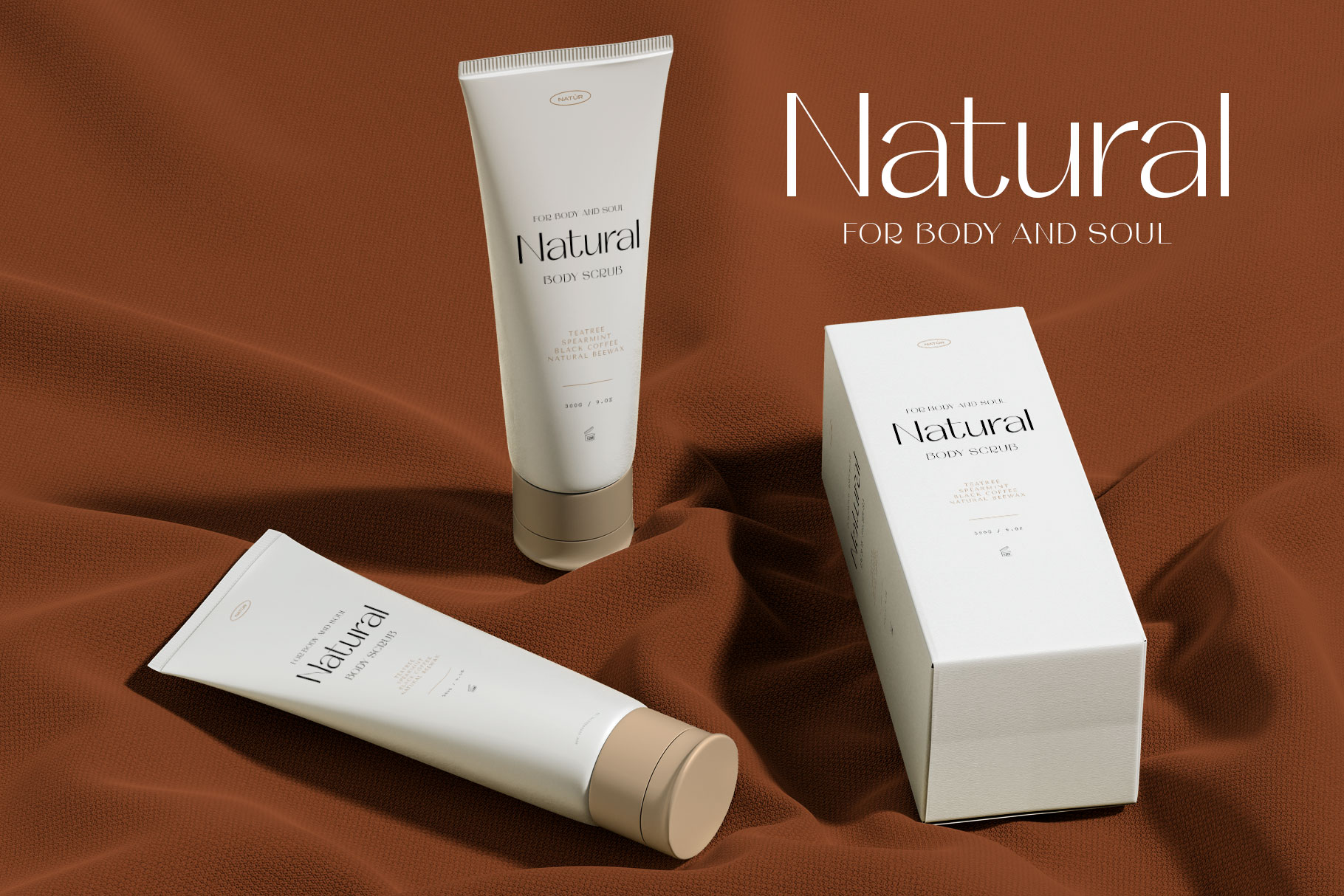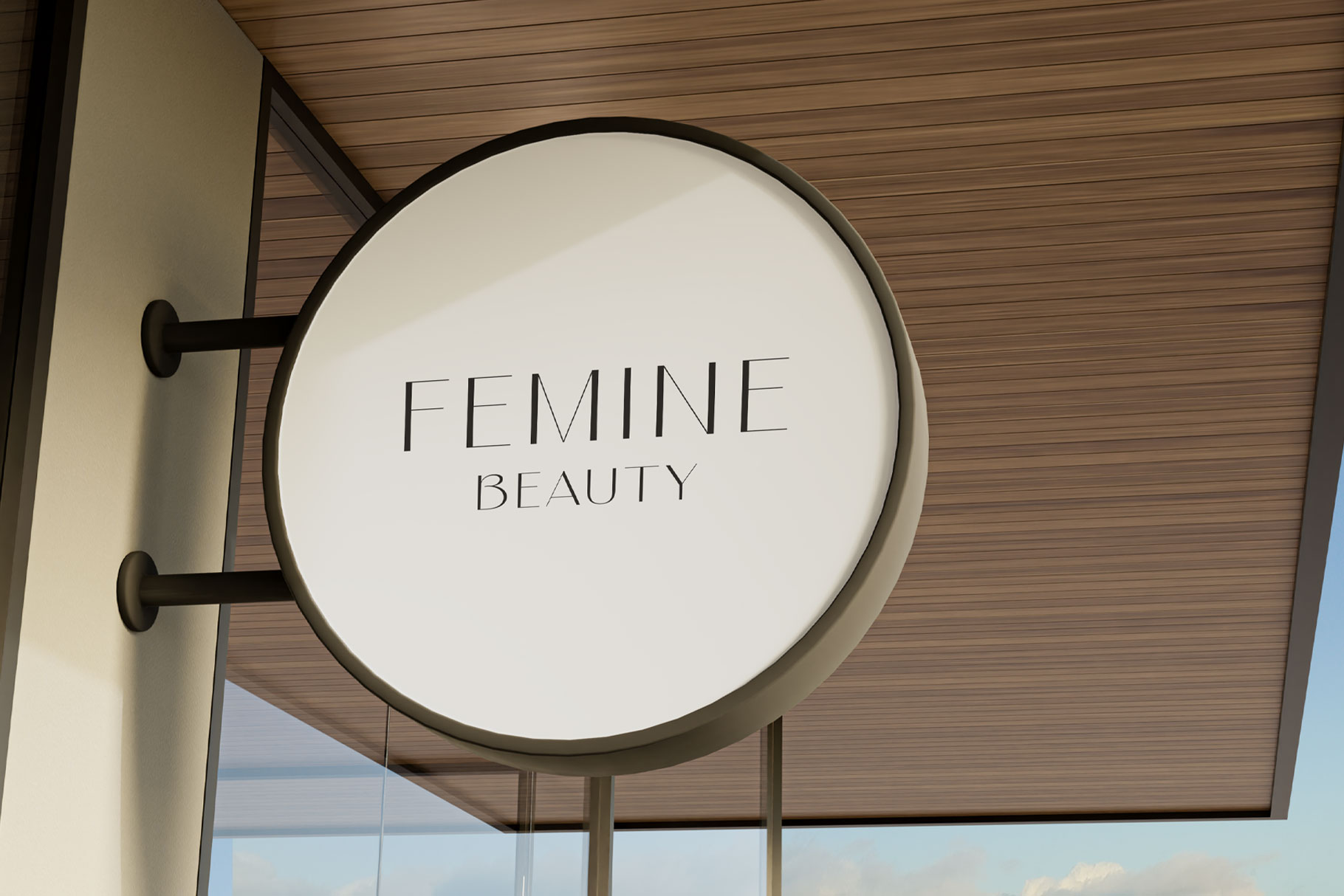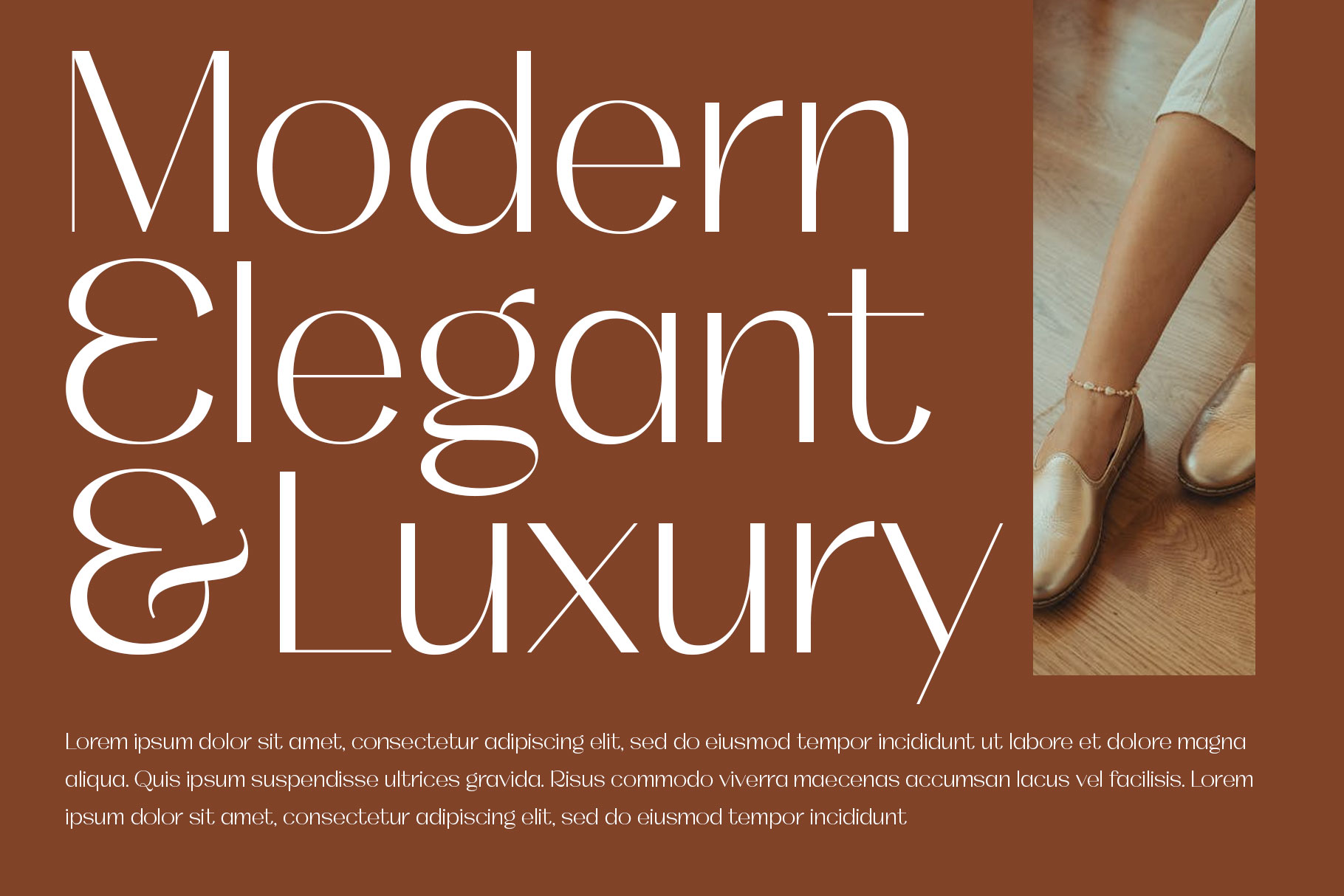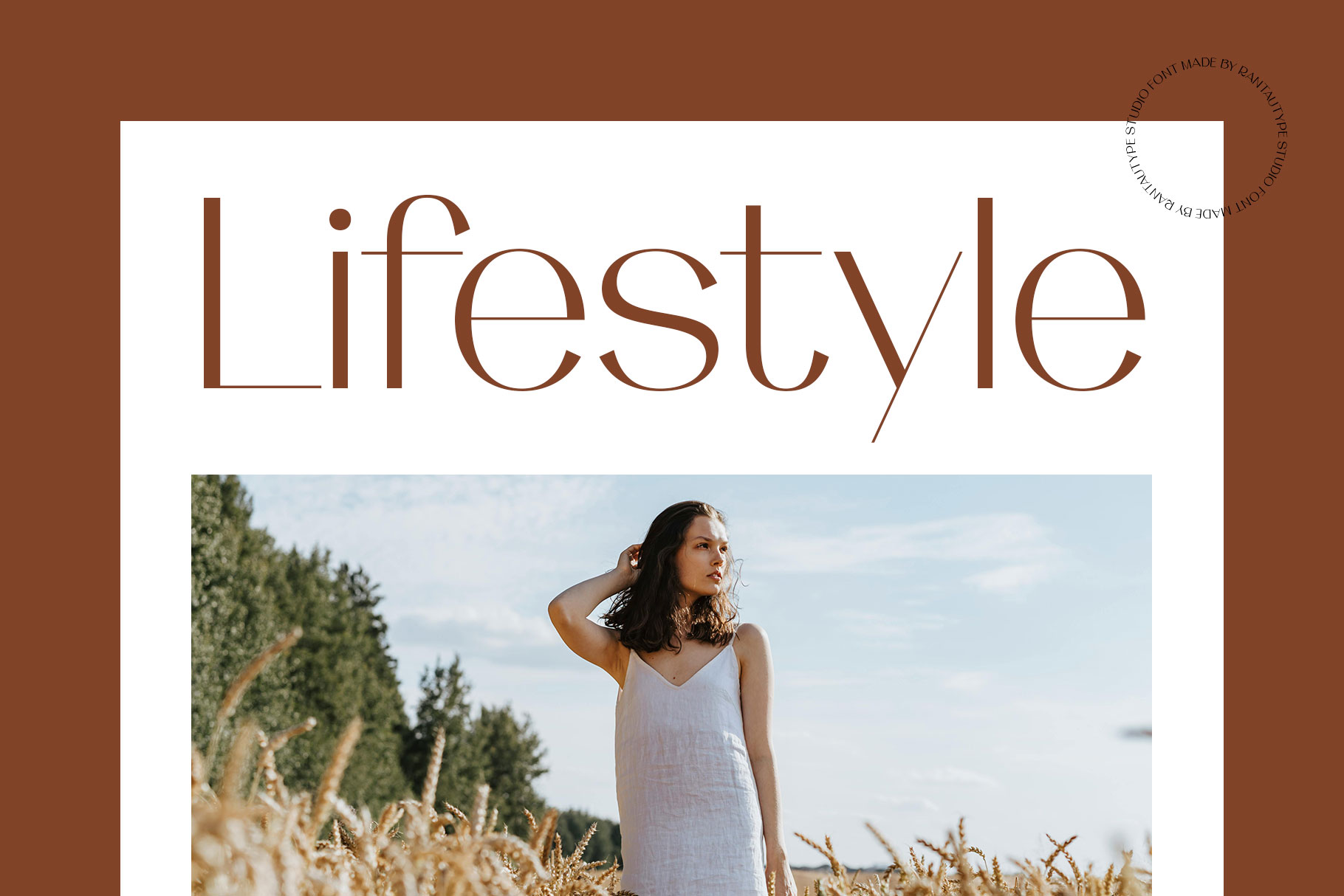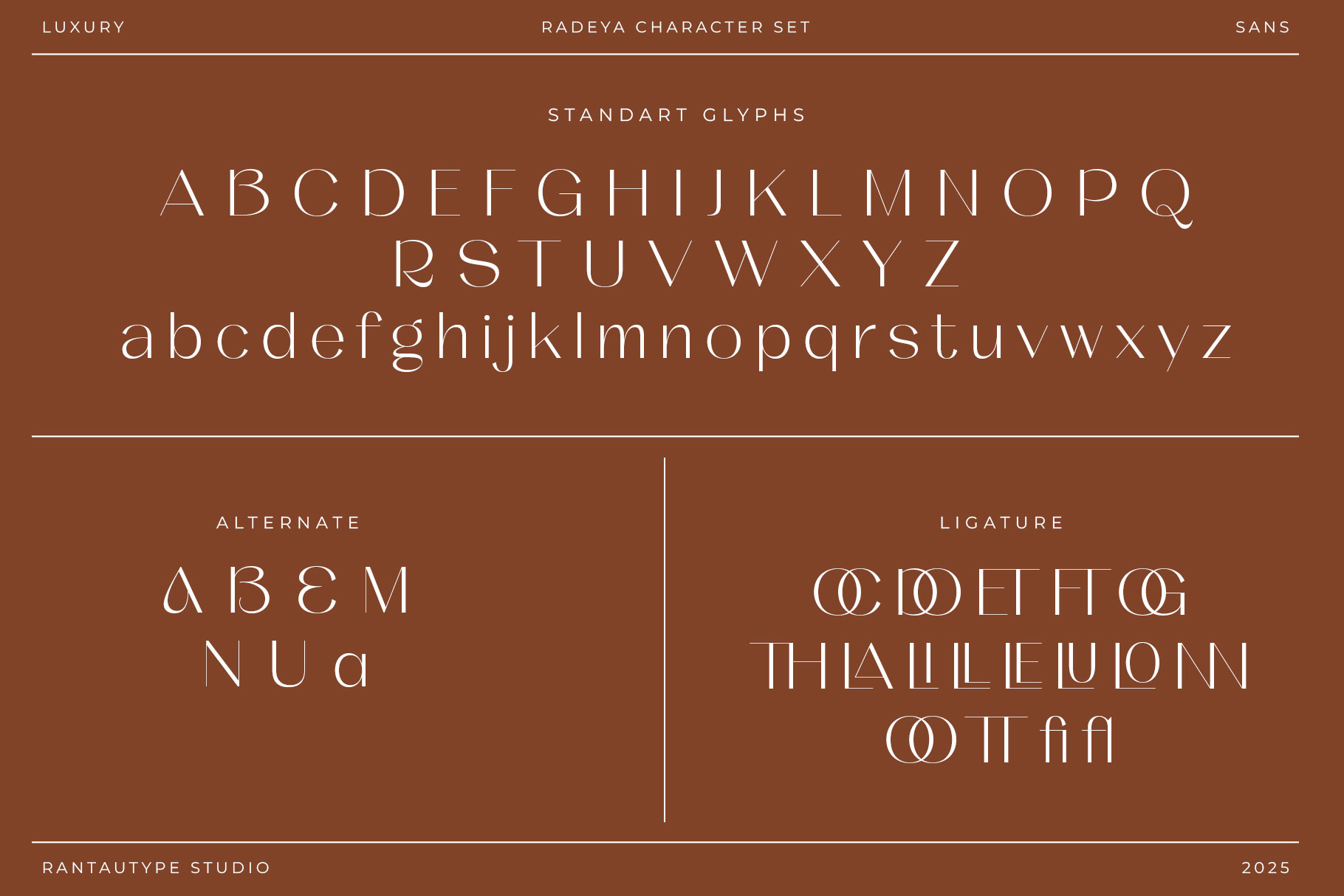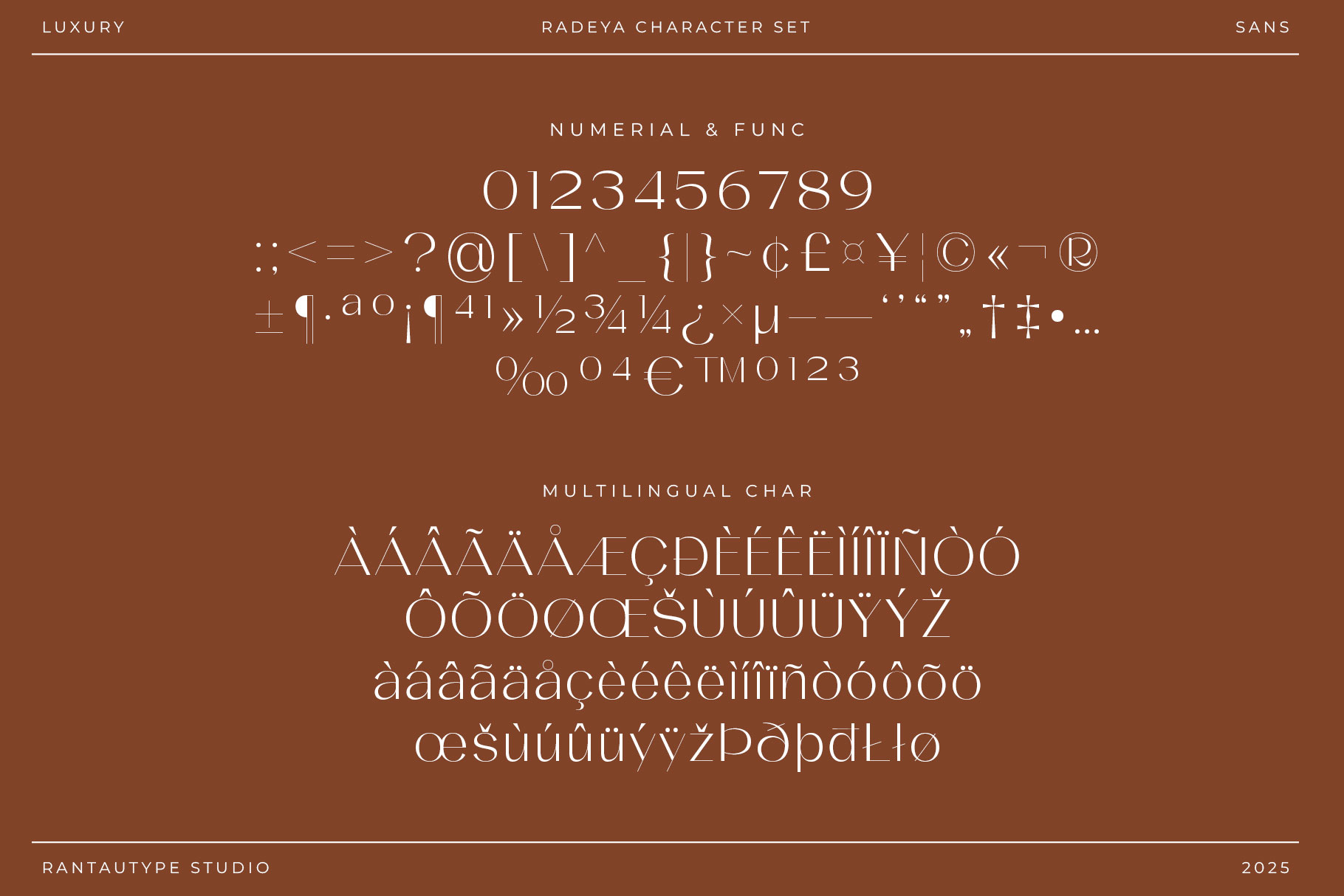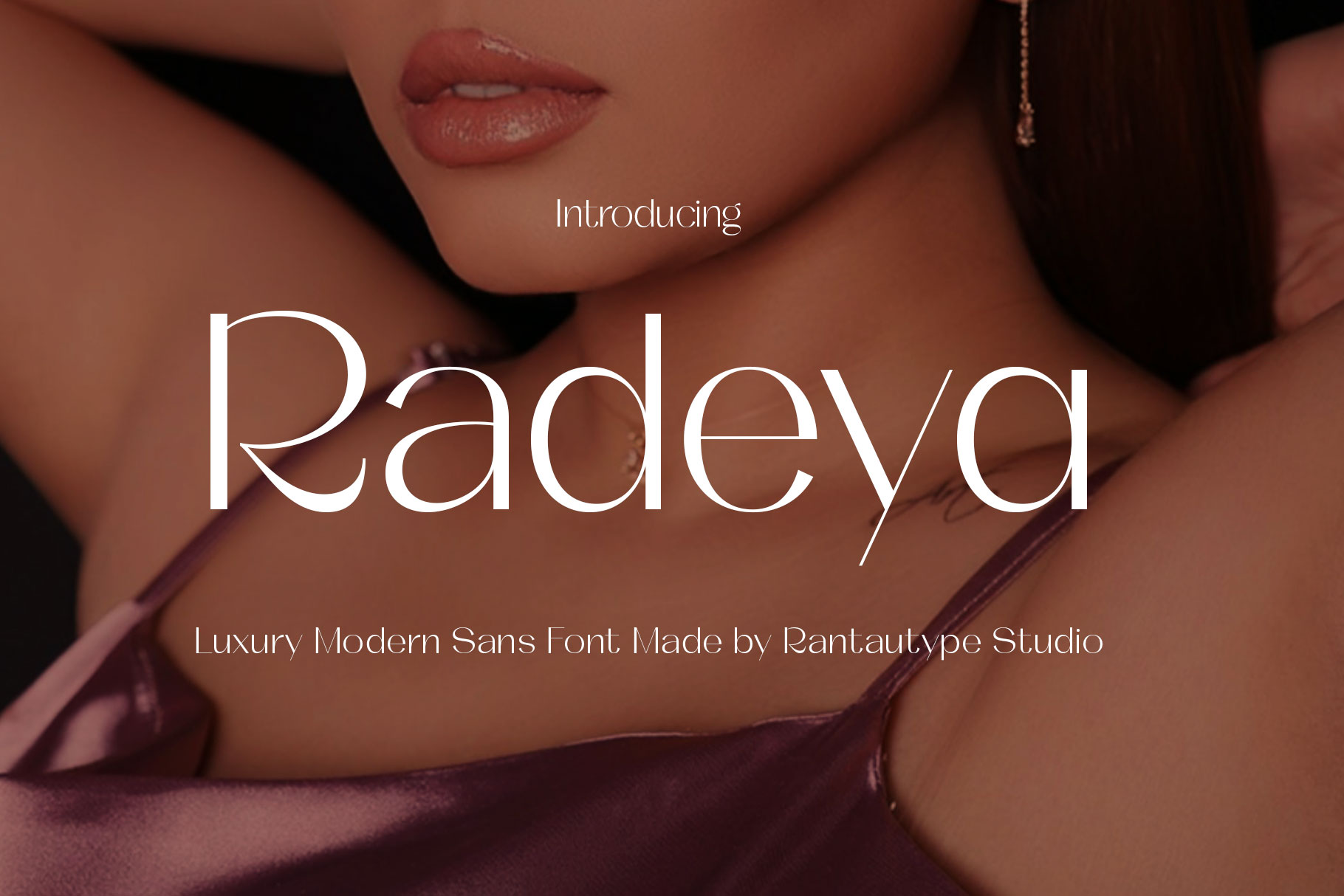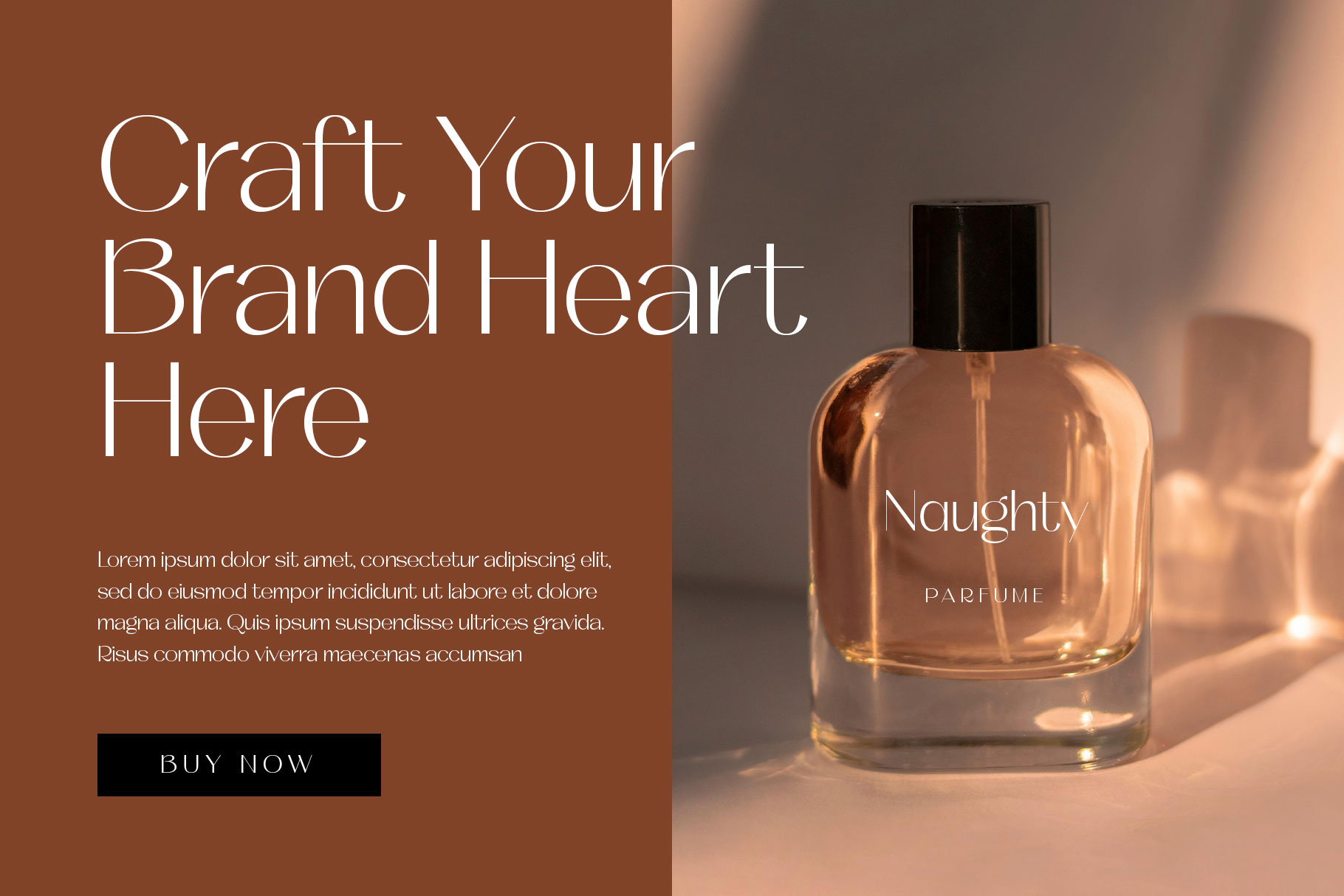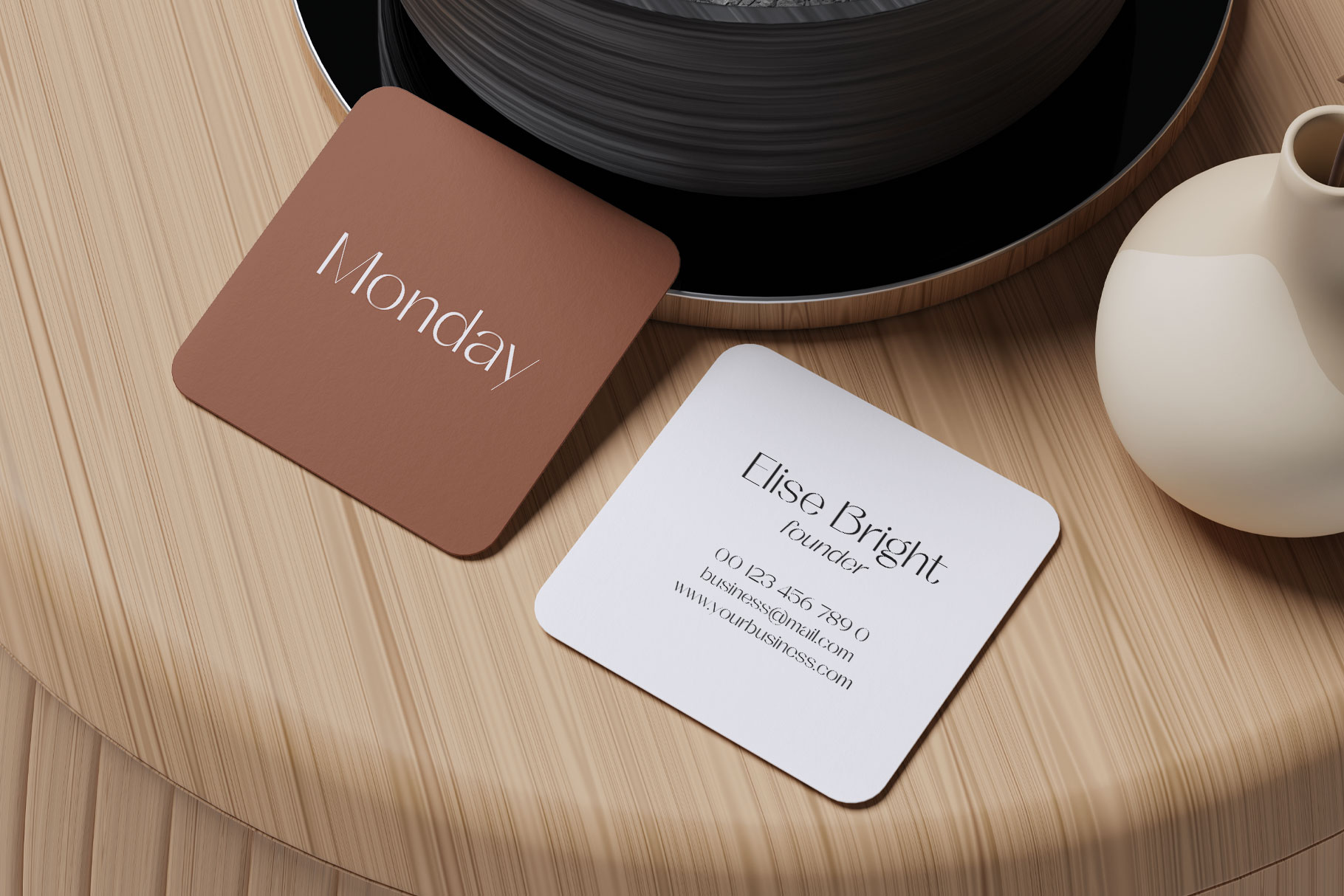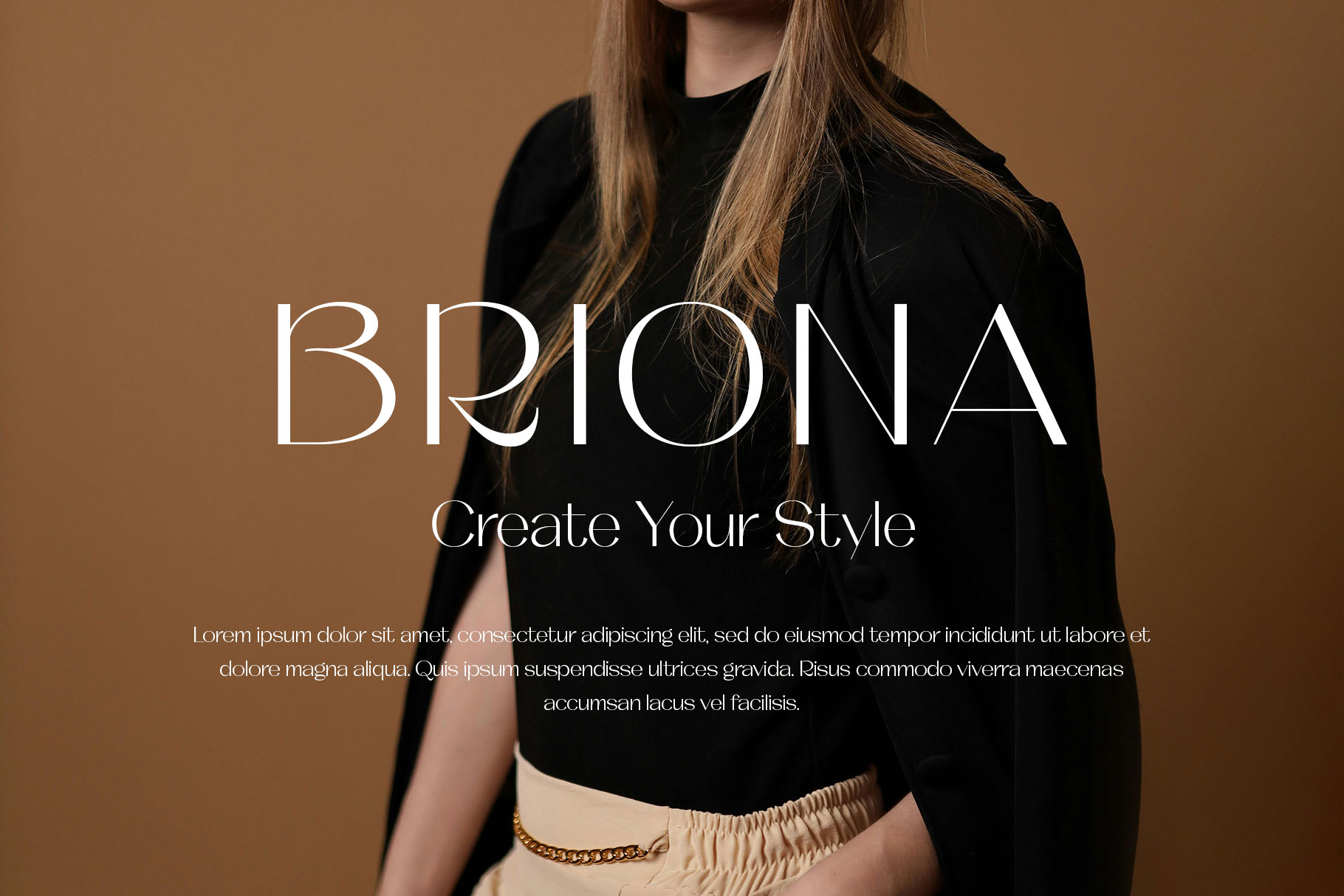
Radeya Luxury Modern Sans Font
Radeya is modern and luxury sans font made with love and passion by Rantautype Studio. Radeya is a professional choice for any creative endeavor, chic, lifestyle design such as logotype, advertisements, watermark on photography, stationery, branding project, display and magazine, invitation, corporate brand, product design, label, business project and many other project with modern touch.